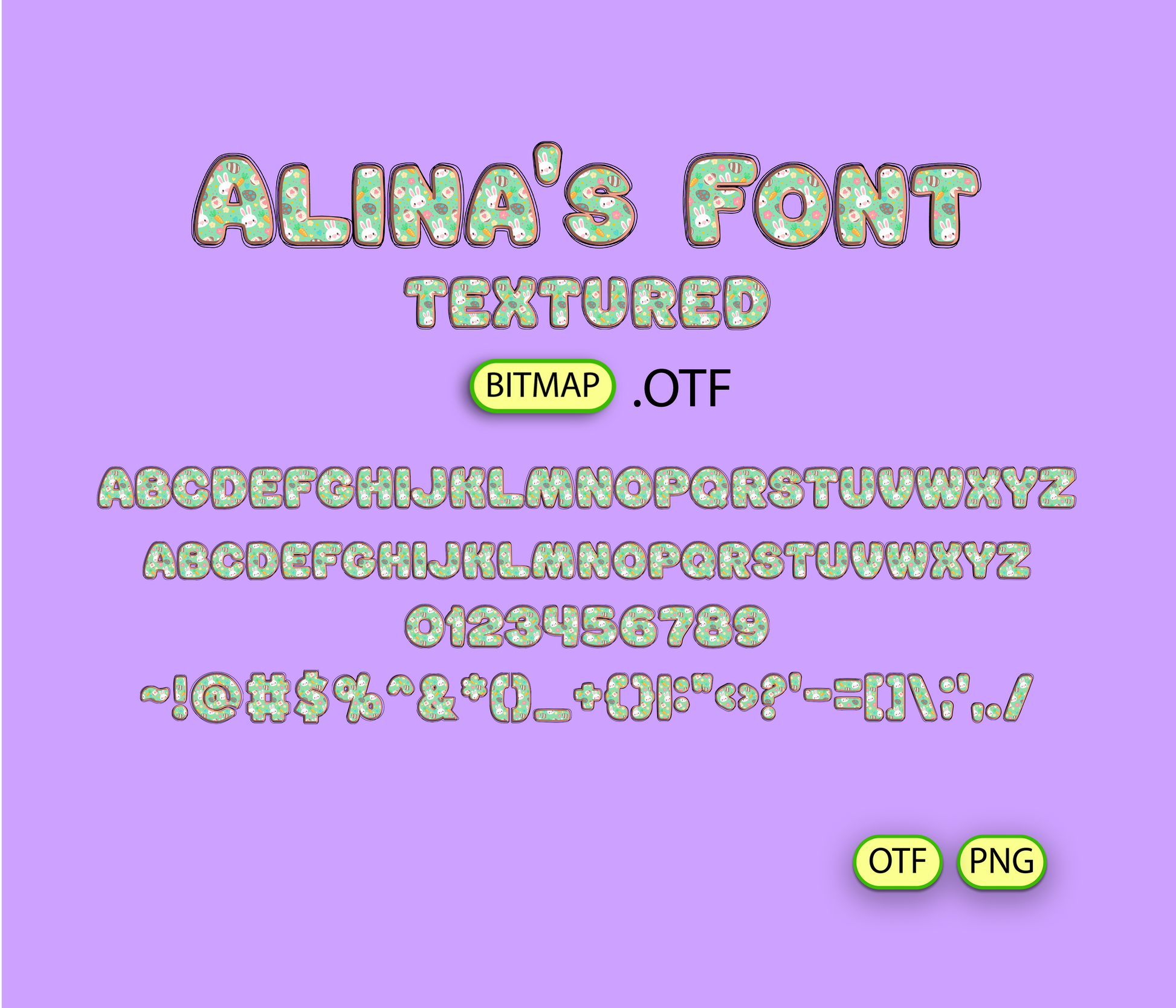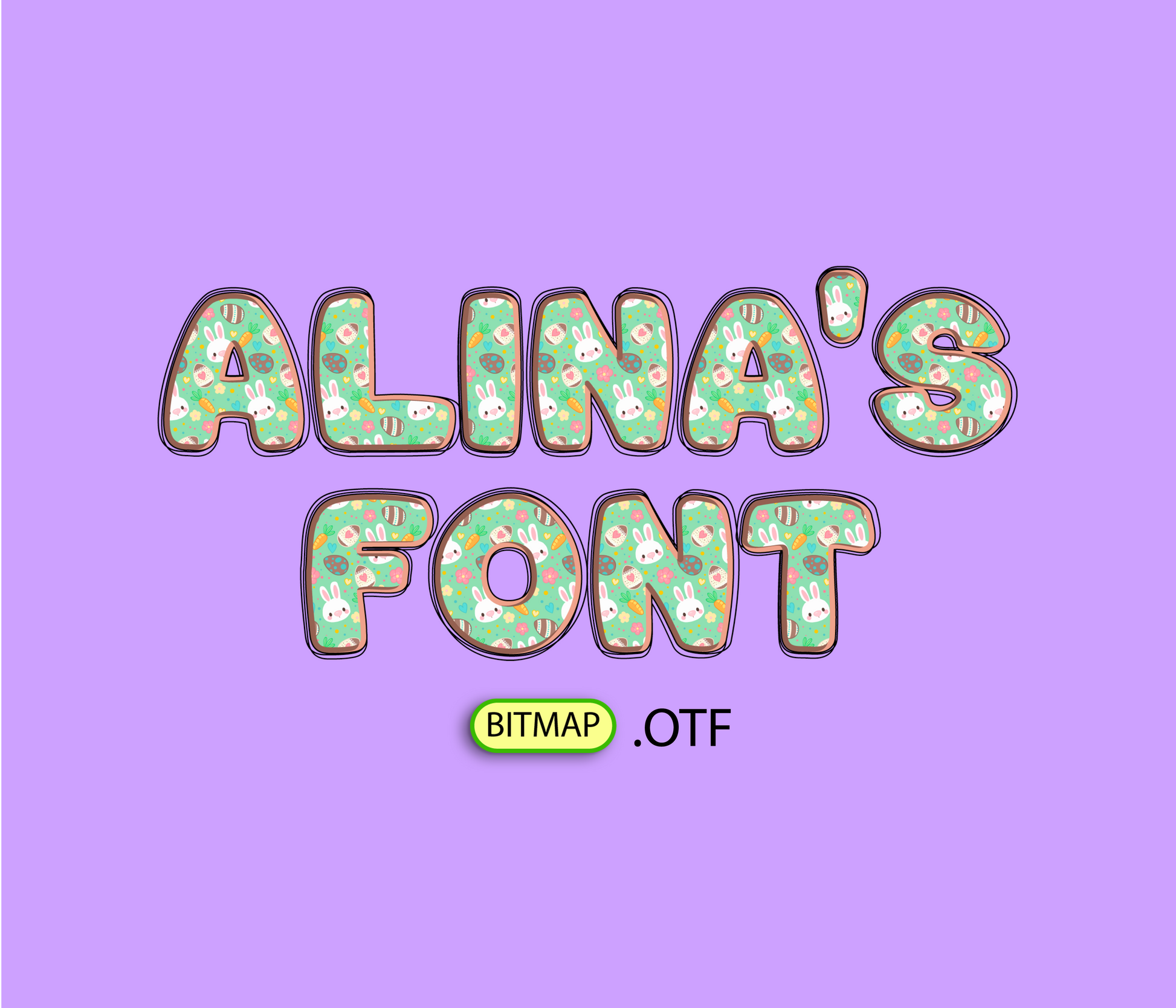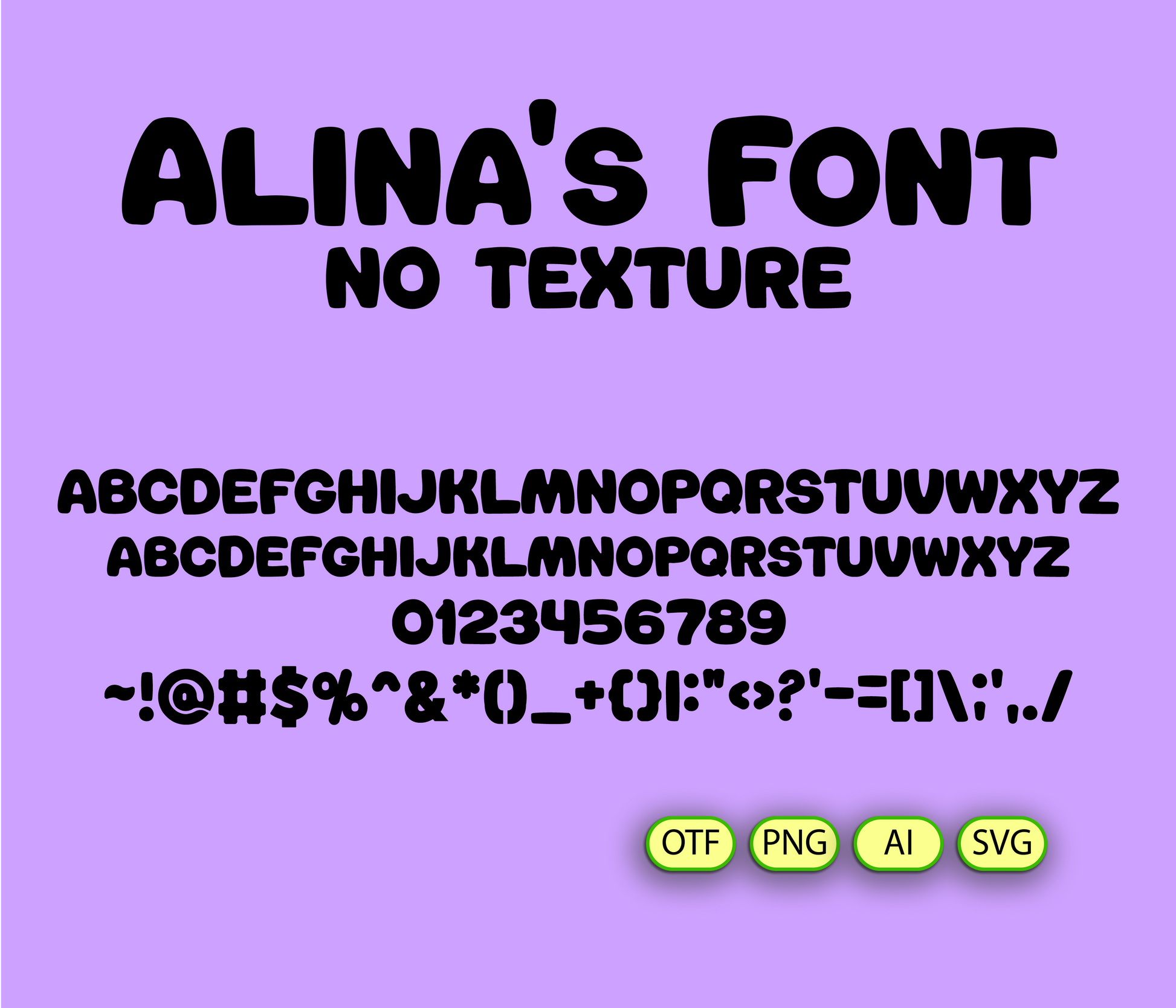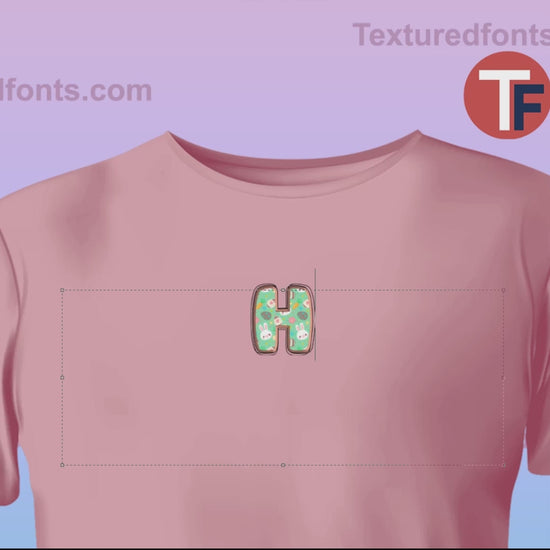
Cheerful Easter Pattern Font
Pastel Pattern Font Cheerful Easter Typography
Introducing our Easter font, a delightful and vibrant typeface designed to capture the essence of the Easter season. This font embodies the joy, renewal, and colorful festivities associated with Easter, from the blooming flowers of spring to the playful search for hidden eggs. Perfect for anyone looking to bring the spirit of Easter into their projects, the Easter font is ideal for crafting invitations to Easter gatherings, creating engaging social media content that celebrates the season, or designing educational materials that explore the traditions and significance of Easter.
Optimized for Canva, the Easter font enables users of all design skill levels to seamlessly incorporate the freshness and vibrancy of Easter into their digital designs. Whether you're working on a spring-themed campaign, personalizing greeting cards, or updating your website for the season, this font is a versatile choice that promises to add a touch of Easter joy to your creations.
Understanding the varied needs of our users, we've included a no-texture version of the Easter font, ensuring compatibility across all software and making it a flexible option for both digital designs and print materials. This adaptability allows the Easter font to enhance your projects with its thematic charm, regardless of the medium. Featuring a comprehensive character set and a user-friendly design, the Easter font is accessible to everyone. It invites users to celebrate and share the beauty of Easter through their work, whether they're commemorating the season, promoting community events, or simply spreading the joy and renewal that Easter represents. With its no-texture variant, the Easter font is prepared to accompany you on all your creative endeavors, enriching your designs with the spirit of spring and the joyful essence of Easter.